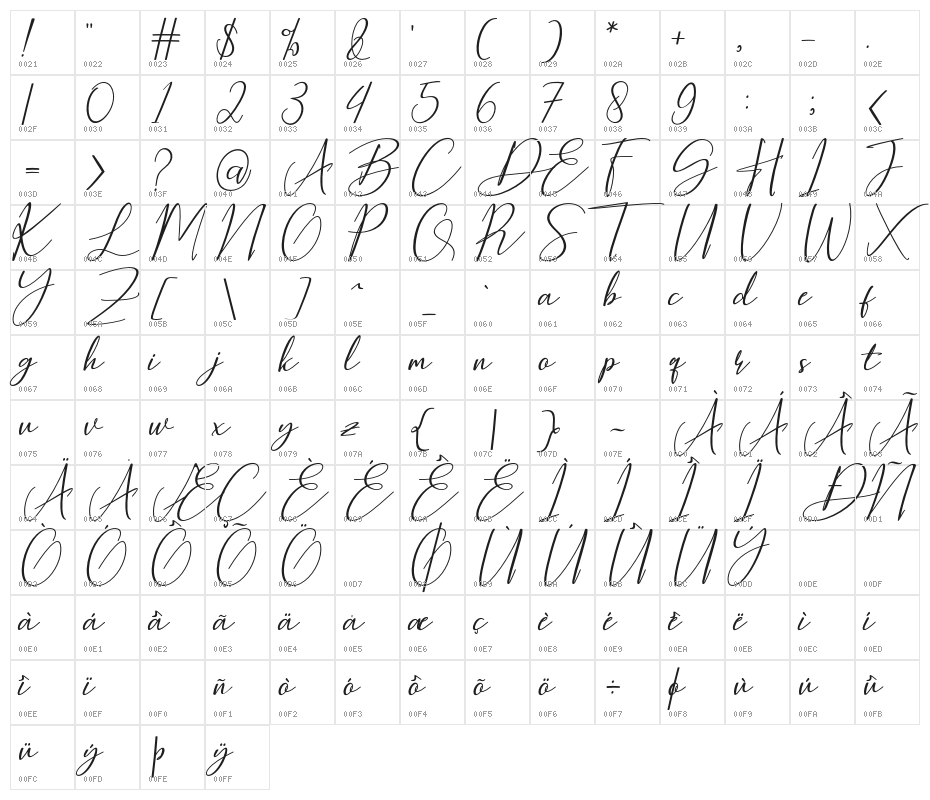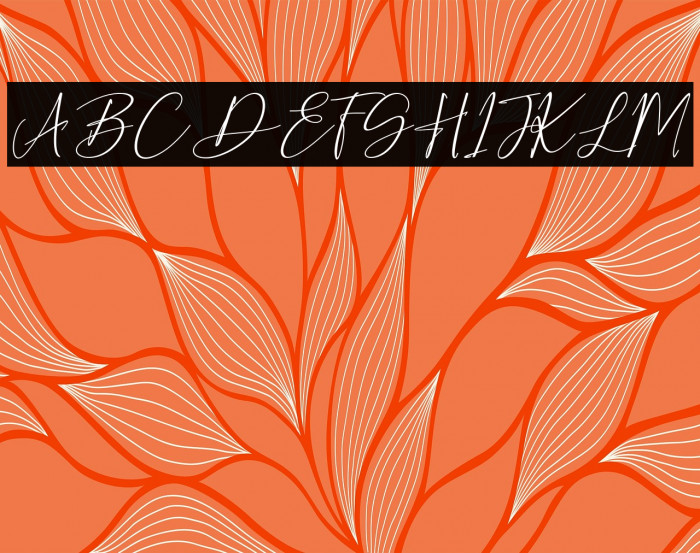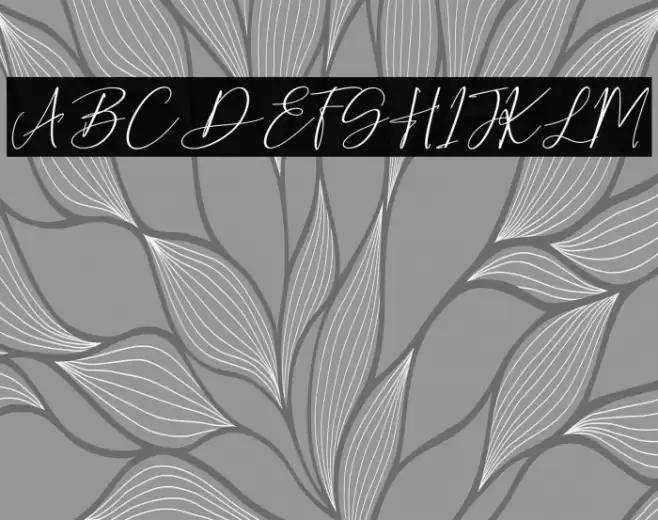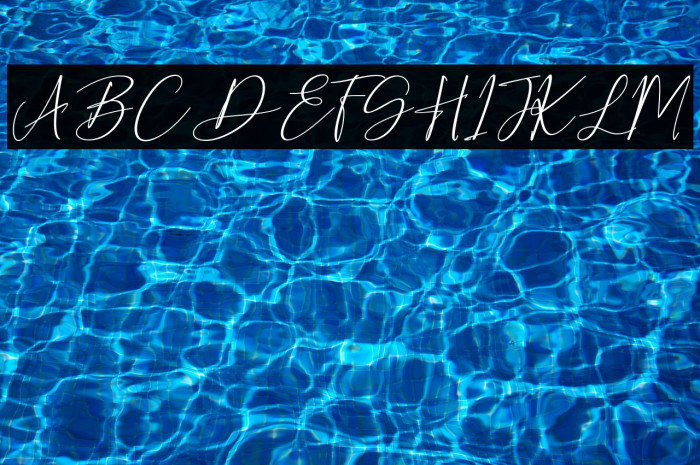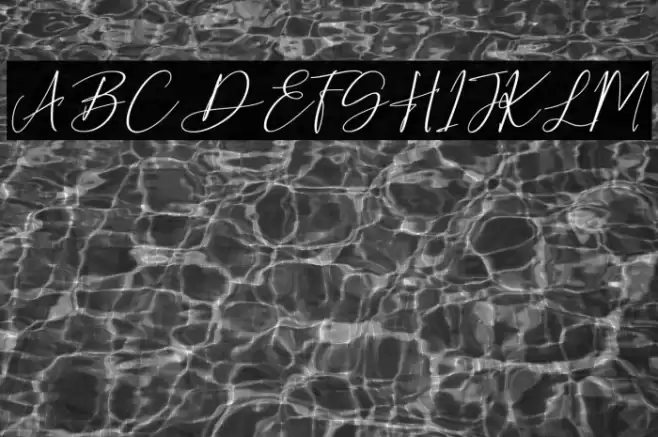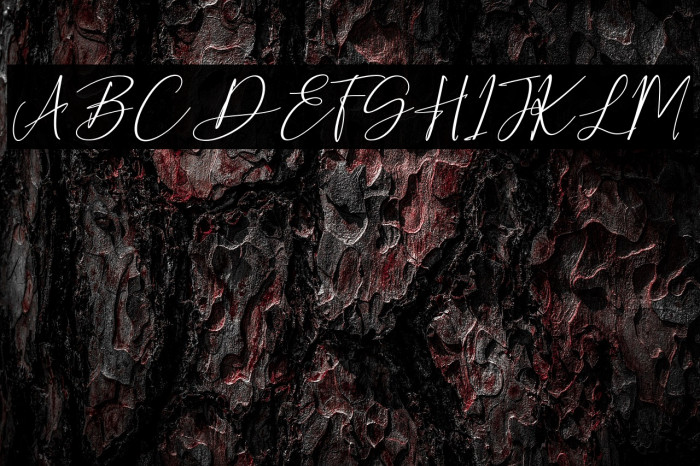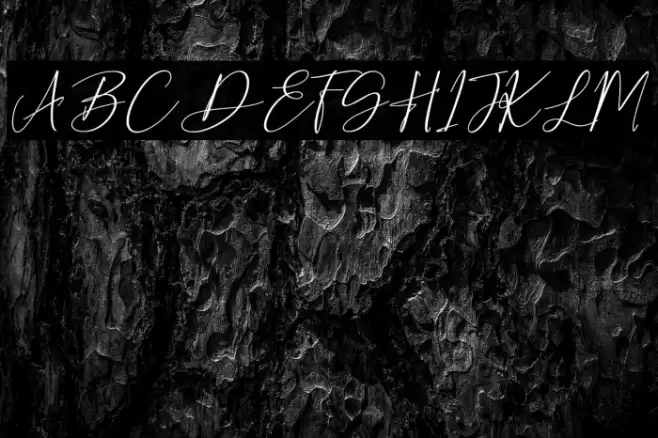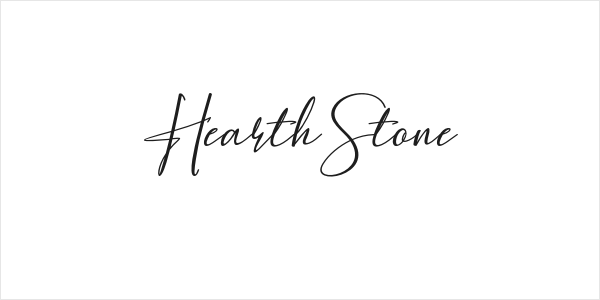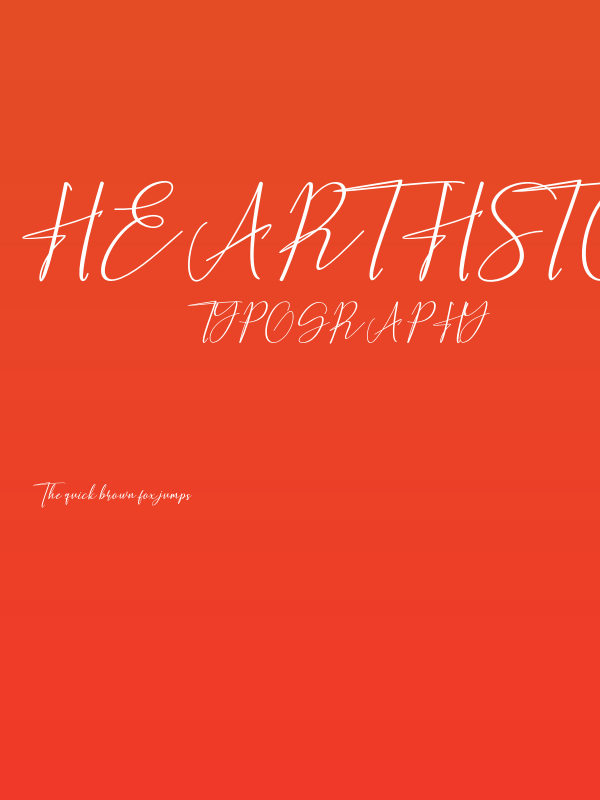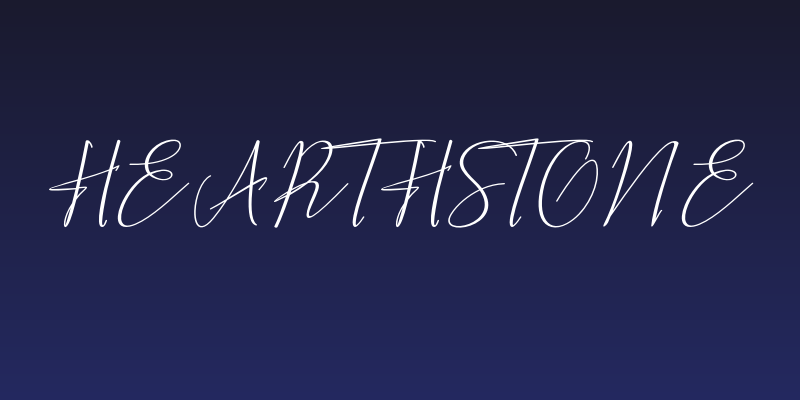
HearthStone Font
HearthStone Description
This elegant script font features a flowing, cursive style with a modern touch. The uppercase letters are tall and slender, with graceful loops and swirls that give a sense of movement and fluidity. The lowercase letters are more compact, maintaining the same fluidity with a slightly bolder stroke. Numbers and special characters follow the same cursive style, ensuring consistency throughout. The font's overall appearance is sophisticated and stylish, making it ideal for projects that require a personal or artistic touch.